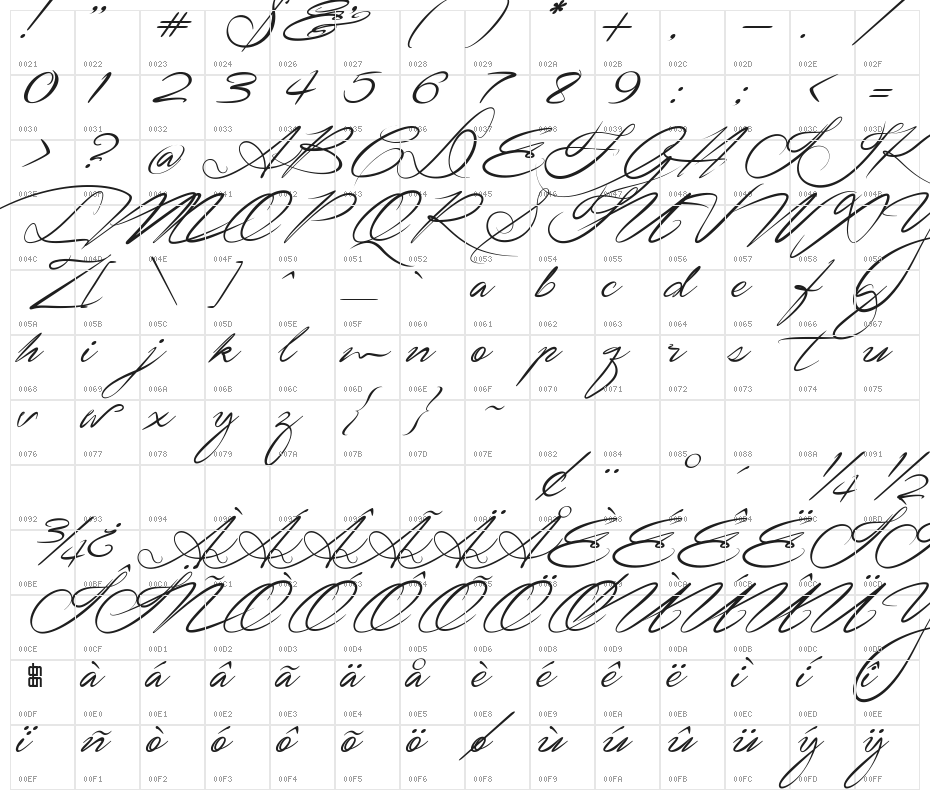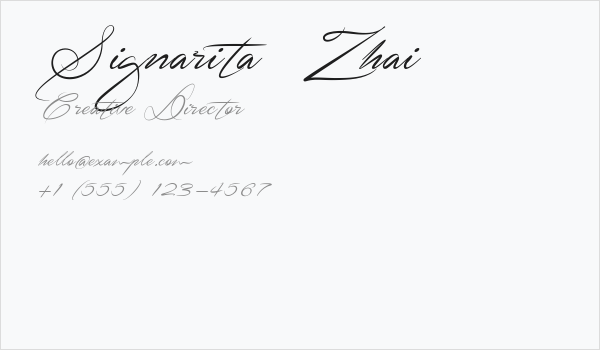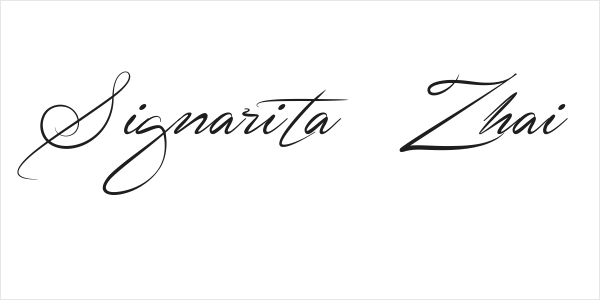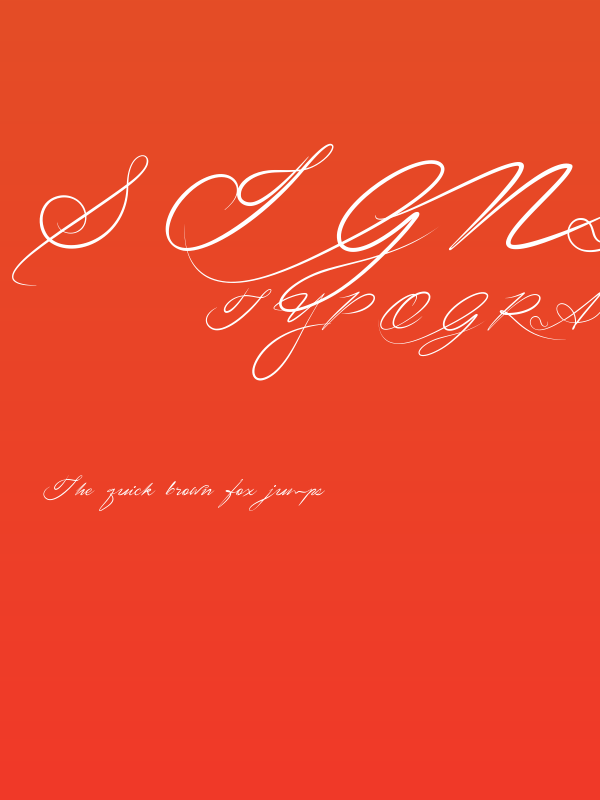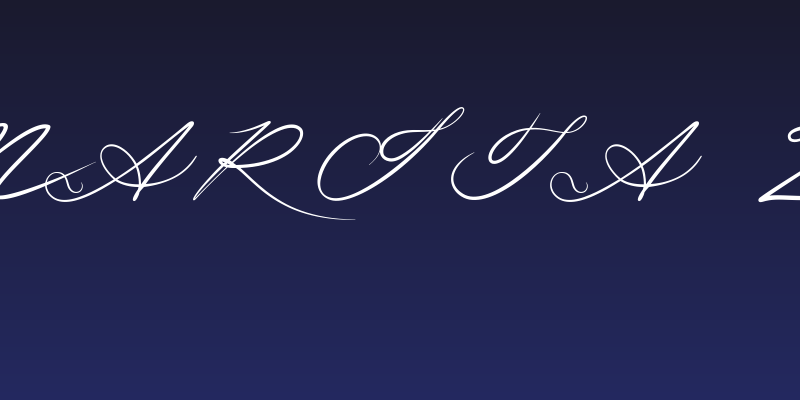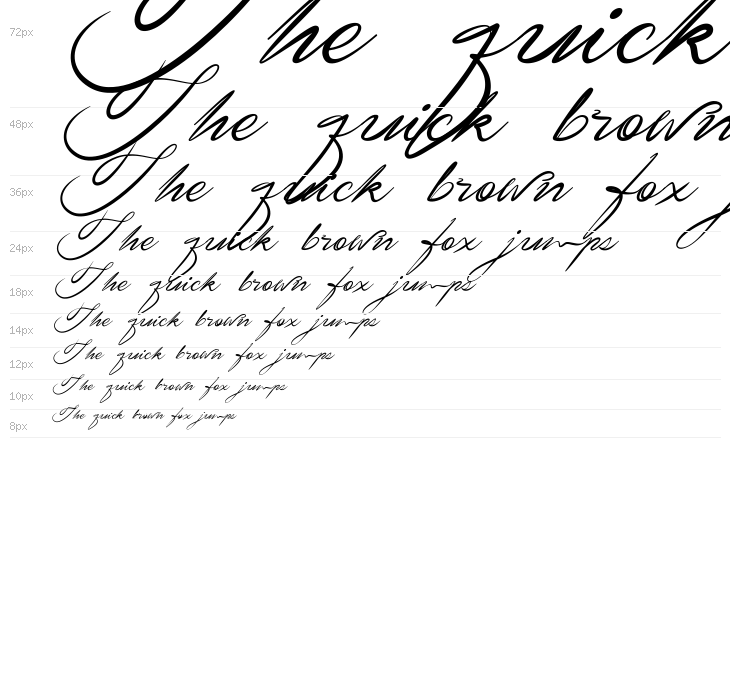
Signarita Zhai Font
Signarita Zhai Description
This elegant script font features a flowing, cursive style with intricate loops and swashes. The uppercase letters are characterized by their graceful, elongated forms and delicate connections, while the lowercase letters maintain a consistent fluidity and rhythm. The numerals are designed with a similar flair, ensuring a cohesive look across all characters. Special characters are adorned with unique flourishes, adding a touch of sophistication. The overall design is reminiscent of classic calligraphy, making it suitable for projects that require a touch of elegance and refinement.
| Proposed Projects | Ideal for wedding invitations, elegant branding, greeting cards, and formal event programs. |